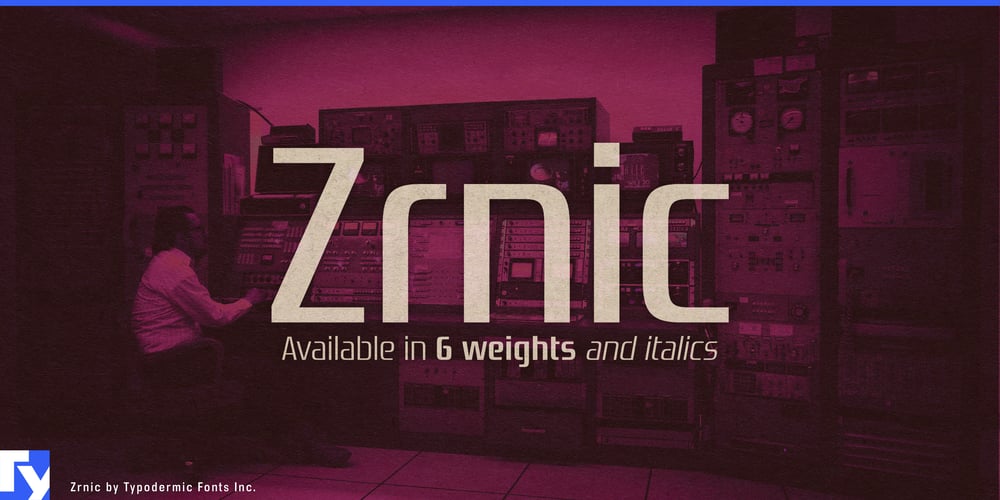
Zrnic Font Family was designed by Ray Larabie and published by Typodermic. Zrnic contains 12 styles and family package options. Step into the world of tomorrow with Zrnic, the typeface that’s more cutting-edge than a quantum computer and more precise than a laser-guided robotic assembly line. This is a typographic manifestation of humanity’s relentless pursuit of technological perfection.Zrnic’s boxy, plastic letterforms aren’t just design choices; they’re a visual algorithm, each character optimized for maximum clarity in our increasingly digital world. The strategically placed gaps in each letter aren’t merely aesthetic flourishes—they’re innovative weight reduction techniques, allowing your message to float effortlessly above the visual noise of the information age. But don’t let Zrnic’s stark appearance fool you. This typeface is as versatile as a multi-tool in the hands of a skilled technician. With six weights and their italic counterparts, Zrnic offers a spectrum of visual impact. Need to convey the gravitas of a groundbreaking scientific paper? Zrnic Bold has the authority you need. Designing the UI for the next generation of smart home devices? Zrnic Light will give your interface the sleek, minimalist look that screams, “the future is now.”Zrnic doesn’t just speak the language of technology—it’s fluent in the dialects of global innovation. With support for a vast array of Latin-based European writing systems, your message will resonate from the tech hubs of Silicon Valley to the engineering powerhouses of Stuttgart, ensuring that no matter where your audience is, they’ll receive your communication with crystal clarity.Choose Zrnic for your next project and watch as your designs transform from mere text to a visual representation of technological prowess. It’s a statement that you’re not just keeping up with the future, you’re actively shaping it.